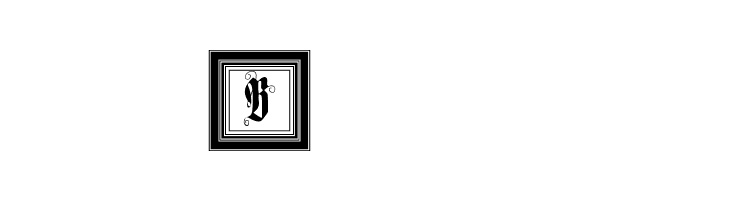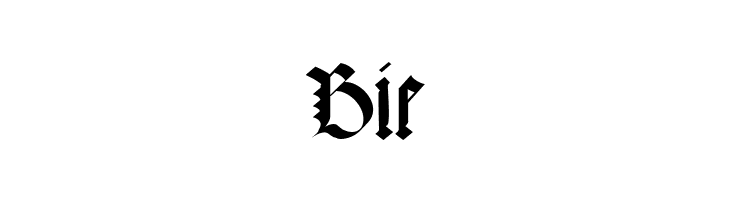
A bold, italicized blackletter font with sharp, angular lines and high contrast.
An ornate, framed blackletter style font with intricate detailing.
A bold and intricate Blackletter font with ornate, angular letterforms.
A bold blackletter font with sharp, angular lines and a gothic aesthetic.
A bold, decorative font with a blackletter influence, featuring ornate curves and sharp angles.
A bold, blackletter-inspired font with sharp, angular lines and a gothic aesthetic.
A bold, blackletter-inspired font with dramatic strokes and ornate details.
A bold, ornate blackletter font with a medieval aesthetic.
A bold, gothic blackletter font with intricate detailing and sharp, angular strokes.